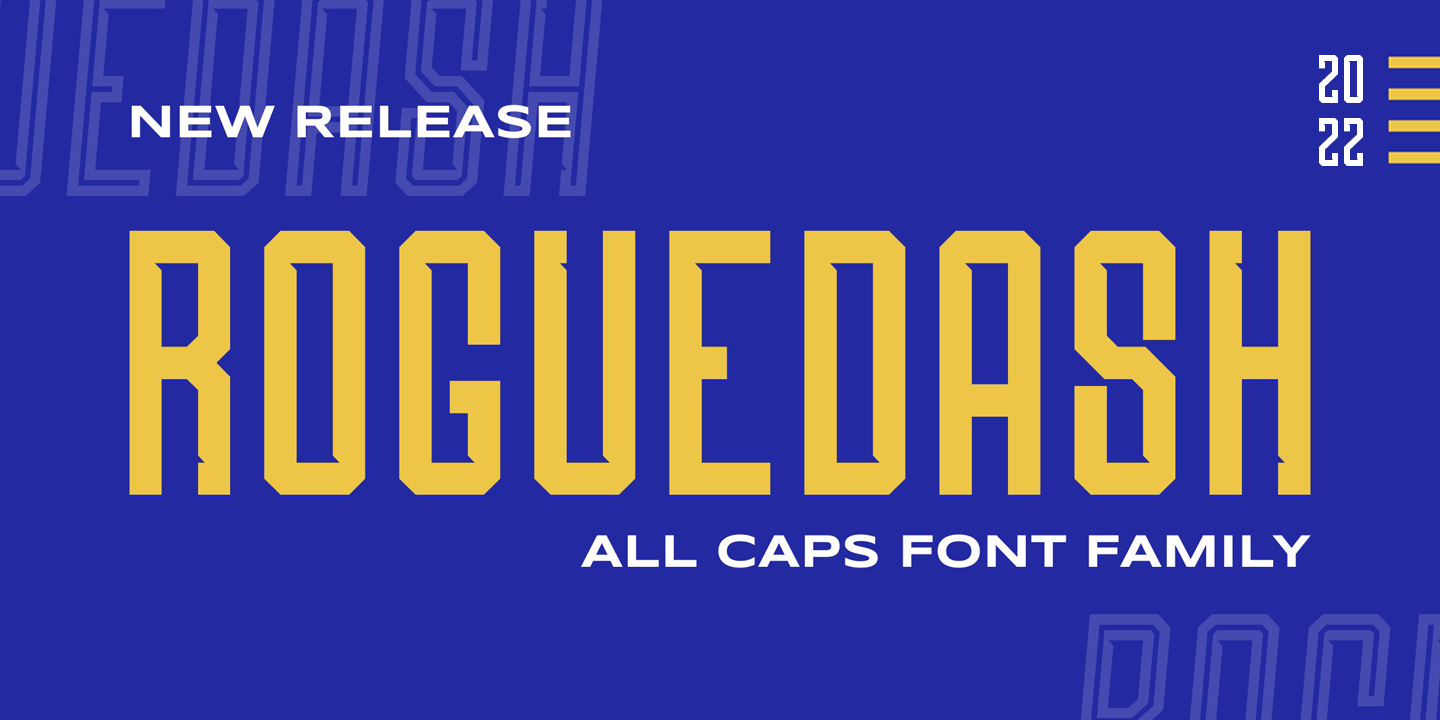
Roguedash Font is perfect for gaming company logos, action movie posters, extreme sports branding, adventure gear packaging, military-themed designs, thriller book covers, cyberpunk game interfaces, adrenaline-fueled event promotions, tactical equipment advertisements, and high-energy entertainment marketing materials. This dynamic typeface brings rebellious energy and fearless spirit to any design project celebrating adventure, risk-taking, and unconventional excellence.
Roguedash Font is exciting because it embodies the spirit of rebellion and lightning-fast action through its bold, aggressive letterforms that suggest speed, danger, and maverick attitude. The font's edgy character and dynamic energy communicate fearlessness, independence, and cutting-edge innovation, making it perfect for brands that want to appeal to thrill-seekers and audiences who embrace unconventional paths to success.
Roguedash Font family includes multiple weights and styles: Regular, Bold, Light, Medium, Black, Condensed, Extended, Speed, Combat, and Tactical variants. Each style maintains the distinctive rebellious character while providing comprehensive options for creating powerful action-oriented branding and high-energy communications that celebrate both individual courage and competitive excellence across dynamic applications.
Whether you're designing for gaming companies, extreme sports brands, or action-oriented entertainment, Roguedash Font Free Download delivers the rebellious energy that resonates with adventure-seeking audiences and competitive markets. This commanding typeface combines maverick spirit with contemporary functionality, making it essential for projects requiring both edgy appeal and powerful visual impact. The font's rogue presence ensures unforgettable results in action and gaming contexts.